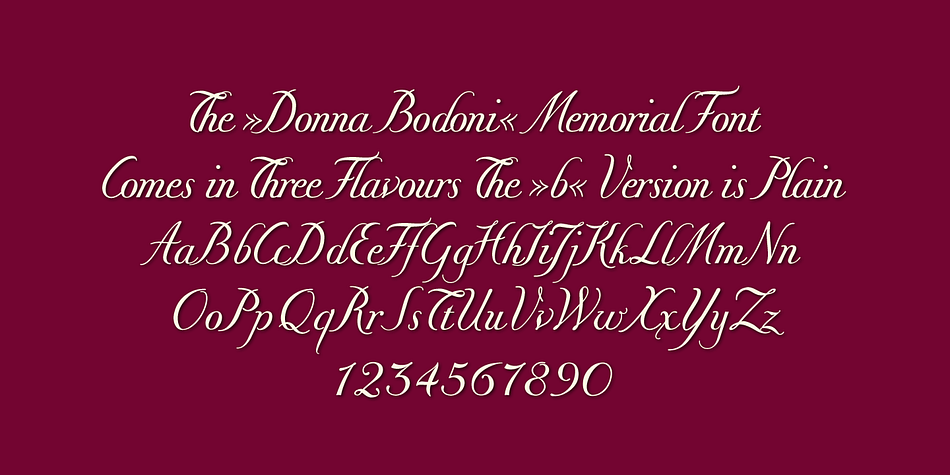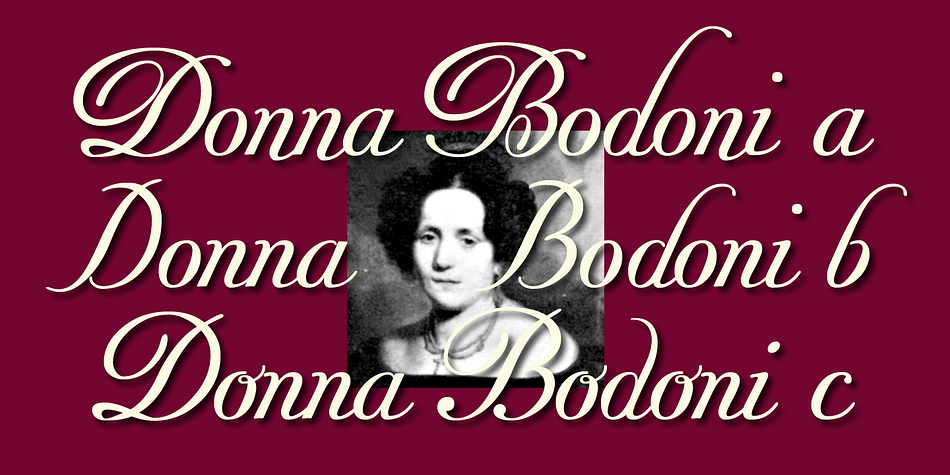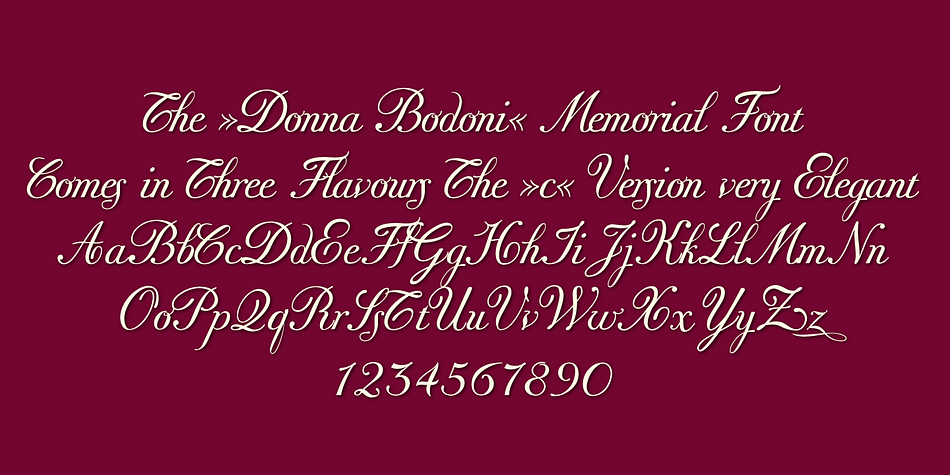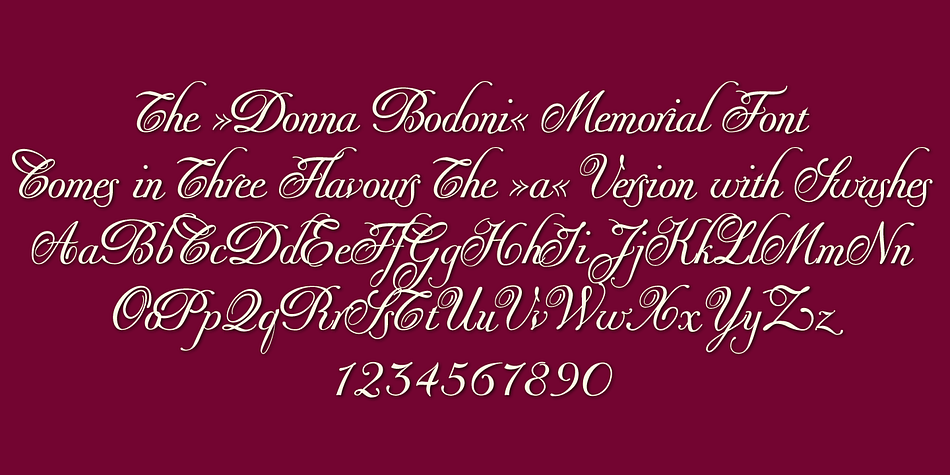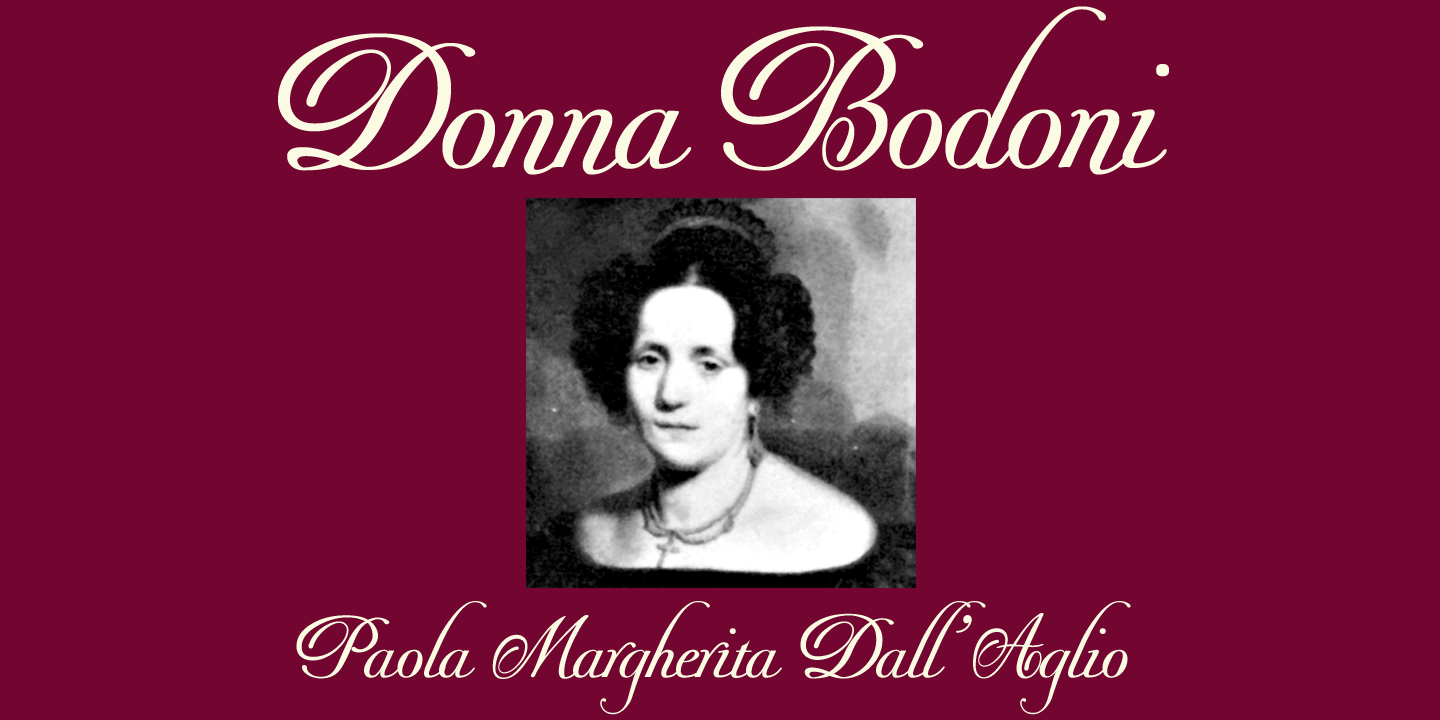
Designed by Gert Wiescher, Donna Bondoni is a script font family. This typeface has three styles and was published by Wiescher-Design.
Donna Bodoni was inspired by David Farey.
He once wrote, somebody should honor the widow of Giambattista Bodoni the brave Signora Paola Margherita Dall ‘Aglio for her effort to have the Manuale tipografico di Giambattista Bodoni published after his death.
Since I have redesigned a good deal of Bodoni’s work and added some of my own, I thought it was my duty to do at least this for Bodoni’s unknown widow.
Here is my 3-cut script in her honor. The design is remotely based on Bodoni’s English-Initials.
Designer | Gert Wiescher |